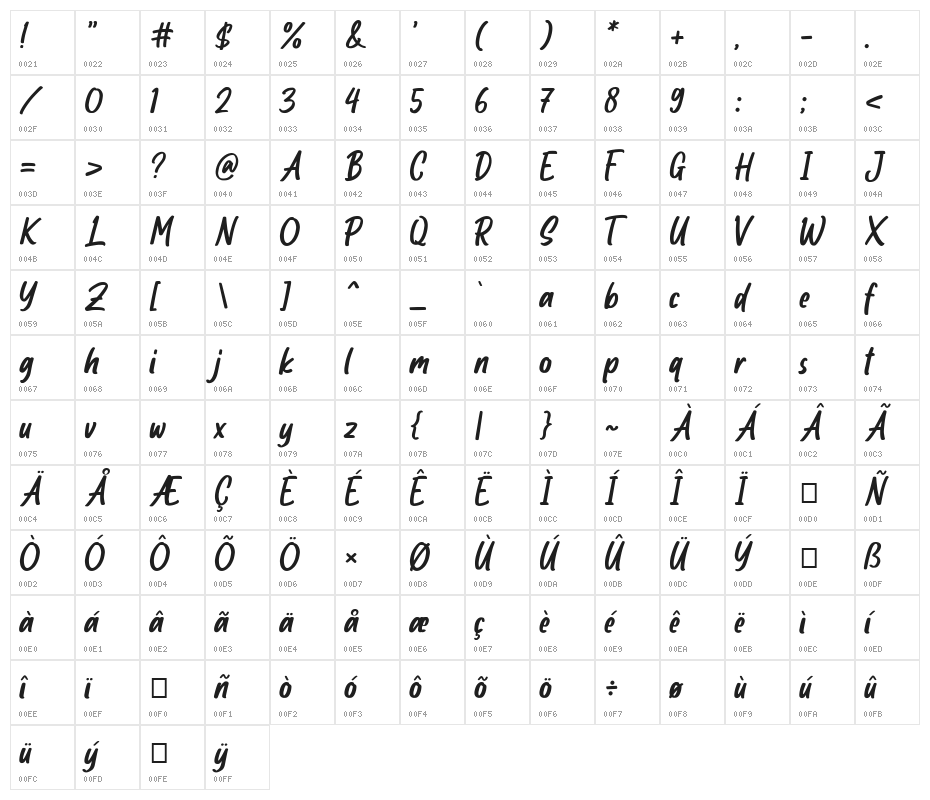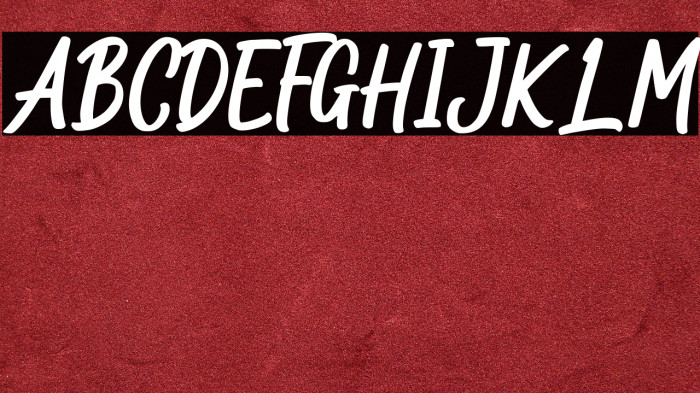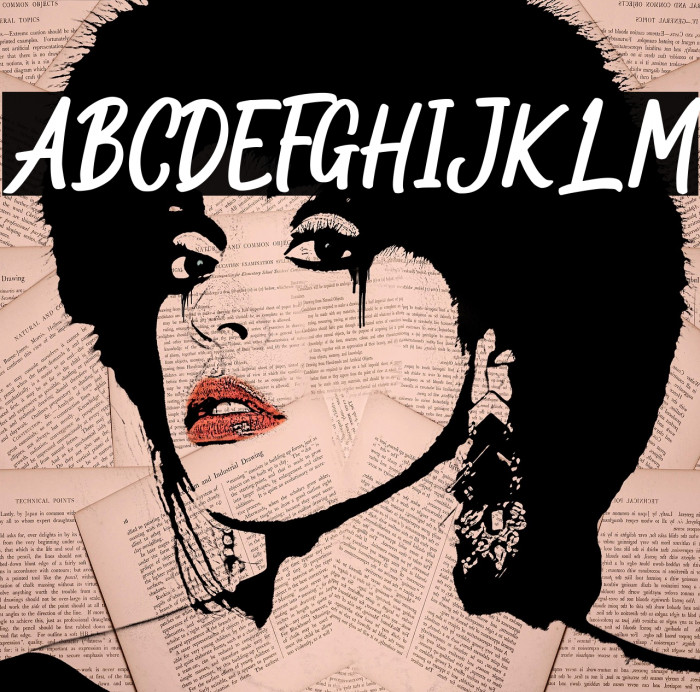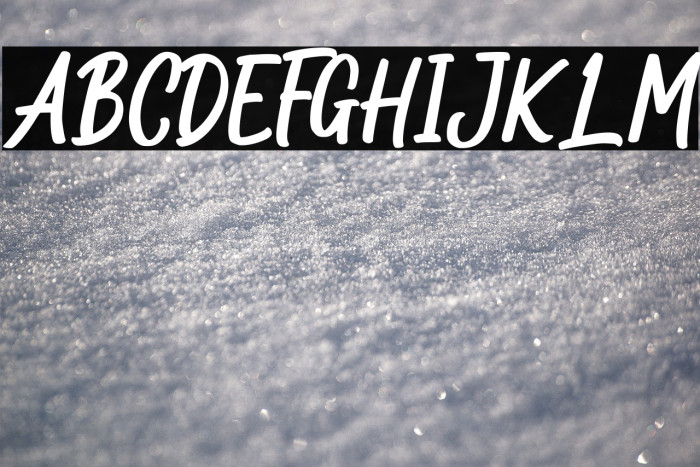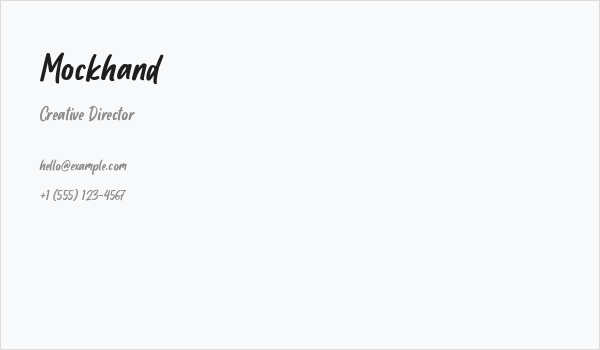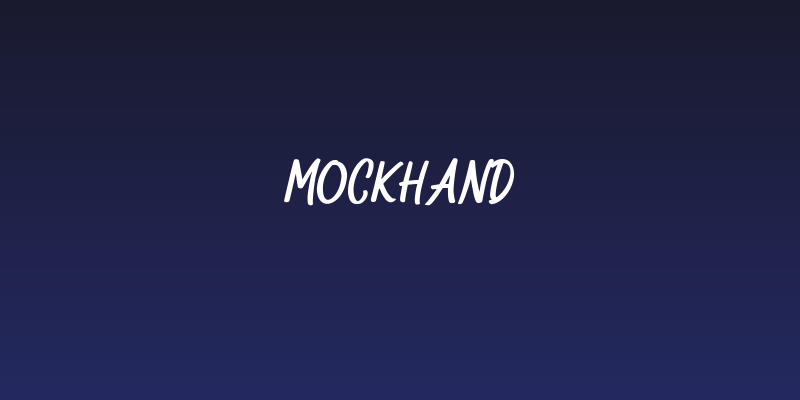
Mockhand Font
Mockhand Description
This font features a lively and dynamic handwritten style, characterized by its bold and fluid strokes. The letters are slightly slanted, giving a sense of motion and energy. The uppercase and lowercase letters maintain a consistent style, with rounded edges and a playful appearance. The numbers and special characters follow the same aesthetic, ensuring uniformity across all glyphs. This font is ideal for projects that require a personal touch or a casual, friendly vibe. Its boldness ensures readability while maintaining a unique and artistic flair.
| Overall Style | Casual, Artistic |
| Use Case | Headlines, Logos, Social media graphics |
| Proposed Projects | Greeting cards, invitations, personal branding, social media graphics, and casual posters. |